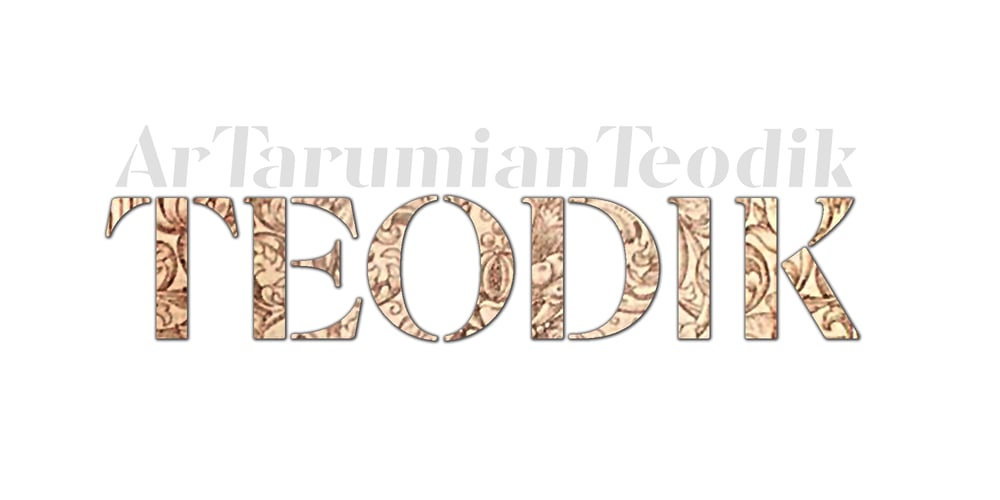
ArTarumianTeodik Font Family was designed by Ruben Hakobyan (Tarumian) and published by Tarumian. ArTarumianTeodik contains 2 styles and family package options. The font is named after the Armenian writer Theodoros Grigor Lapchinchian (Armenian Թեոդորոս Գրիգորի Լափչինճյան: March 5, 1873, Constantinople — May 24, 1928), who in 1912 published book “Type and Letter” (Armenian: Տիպ ու տառ), dedicated to 1500th anniversary of the creation of the Armenian alphabet and the 400th anniversary of Armenian printing. The letter shapes are influenced by some Armenian fonts of the 18th and 19th centuries.